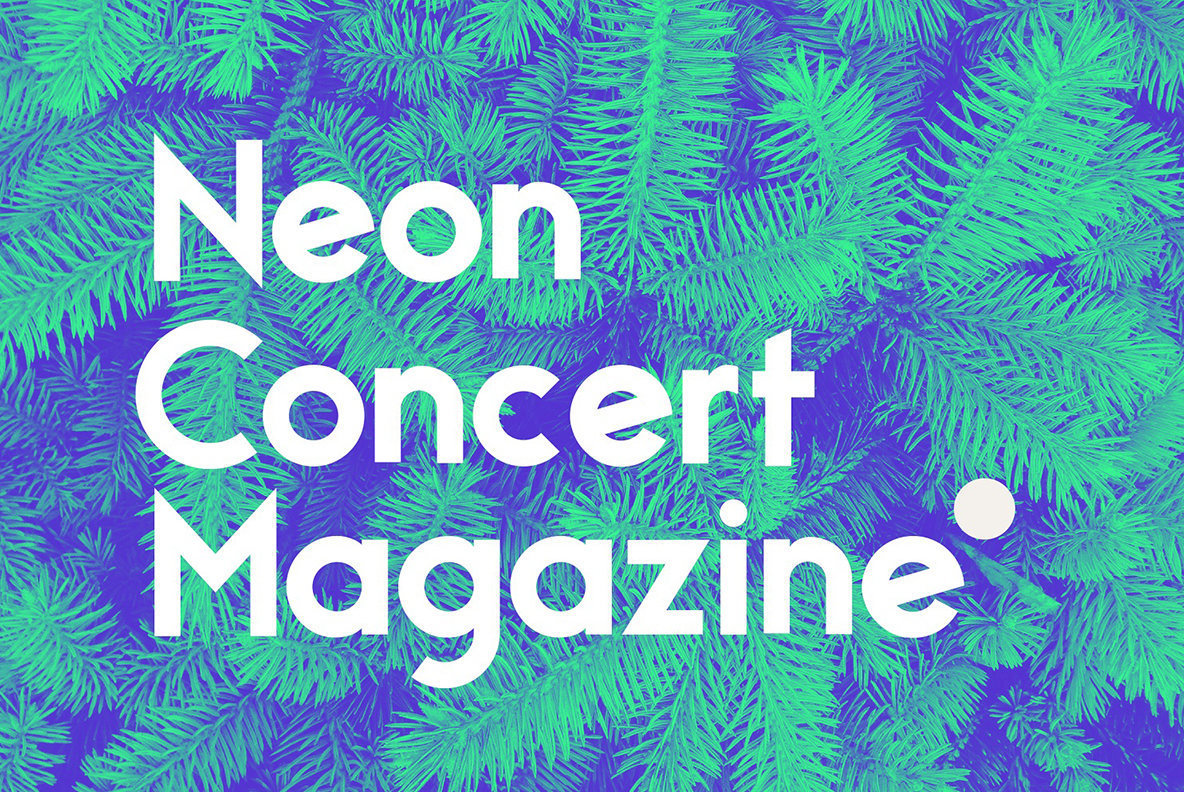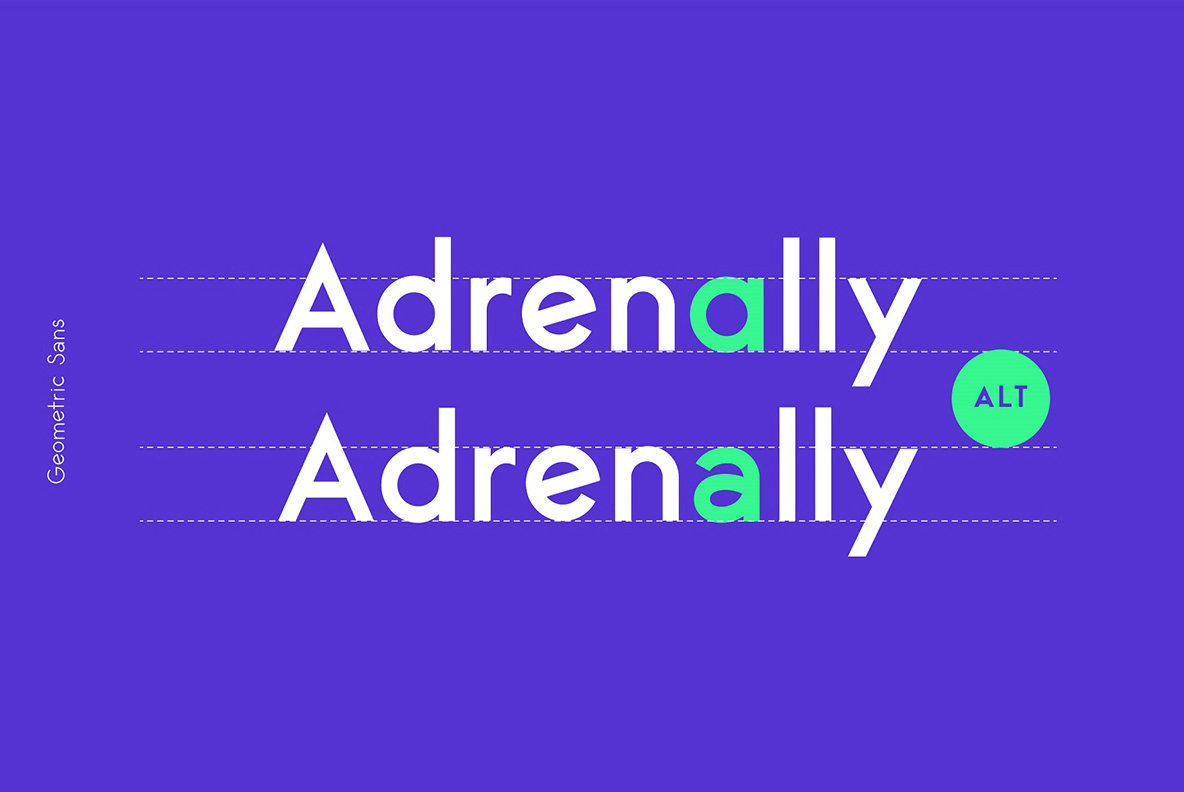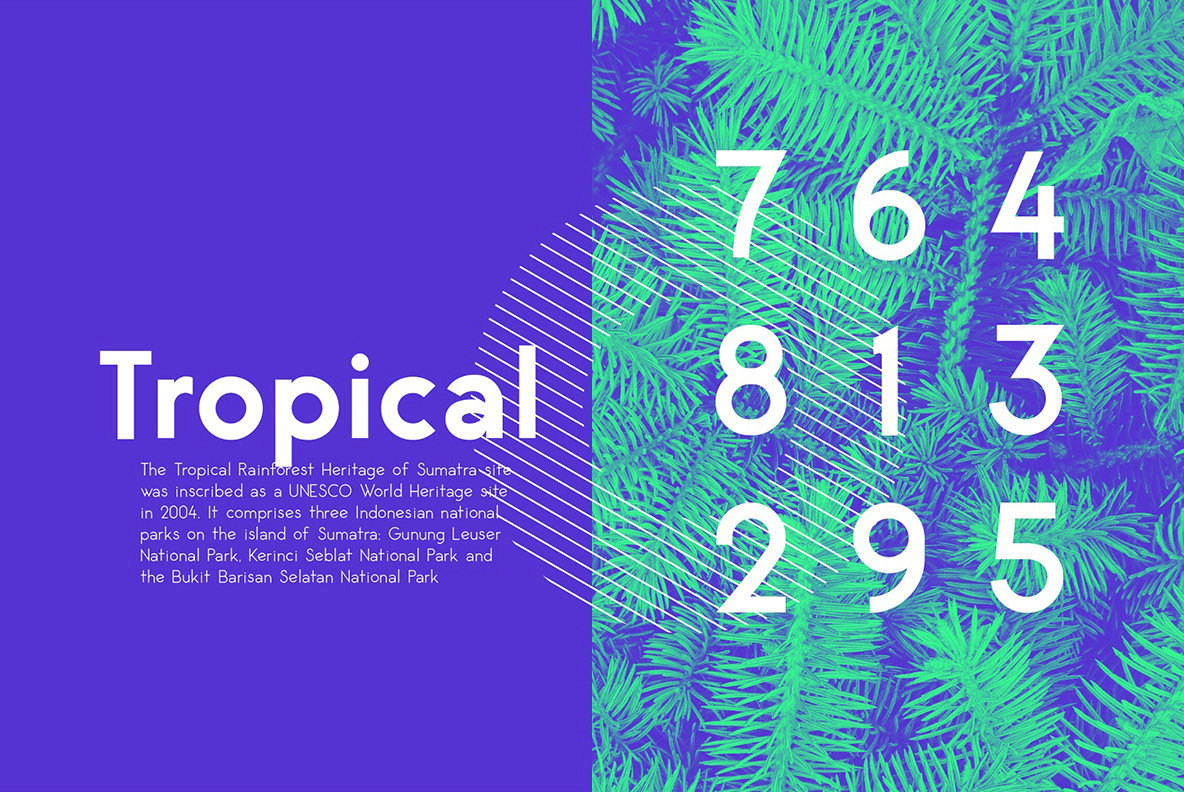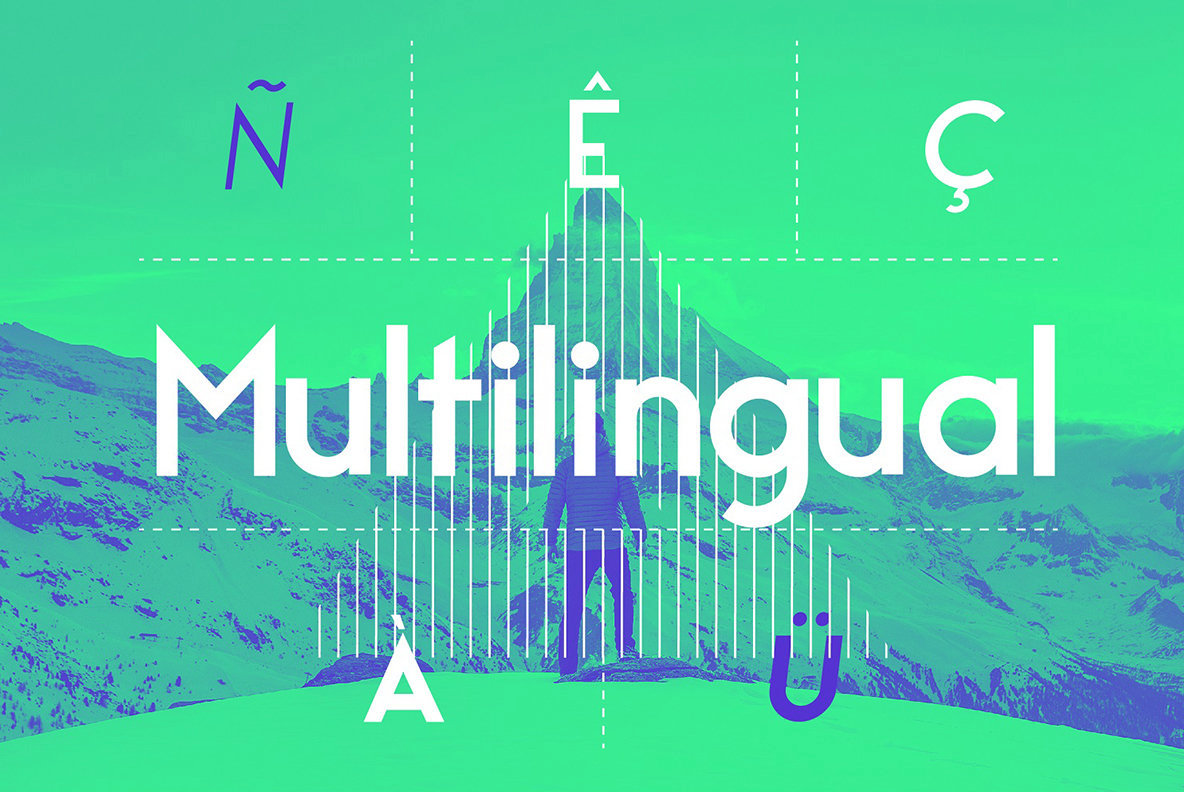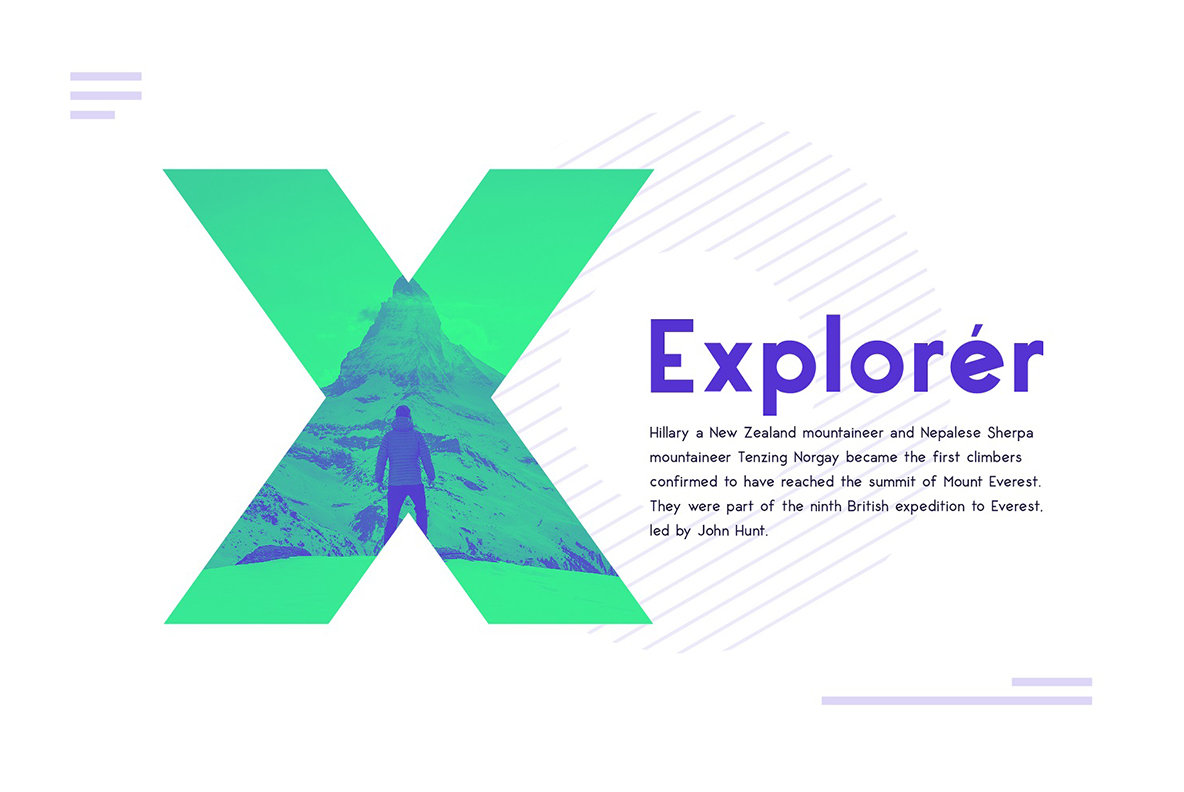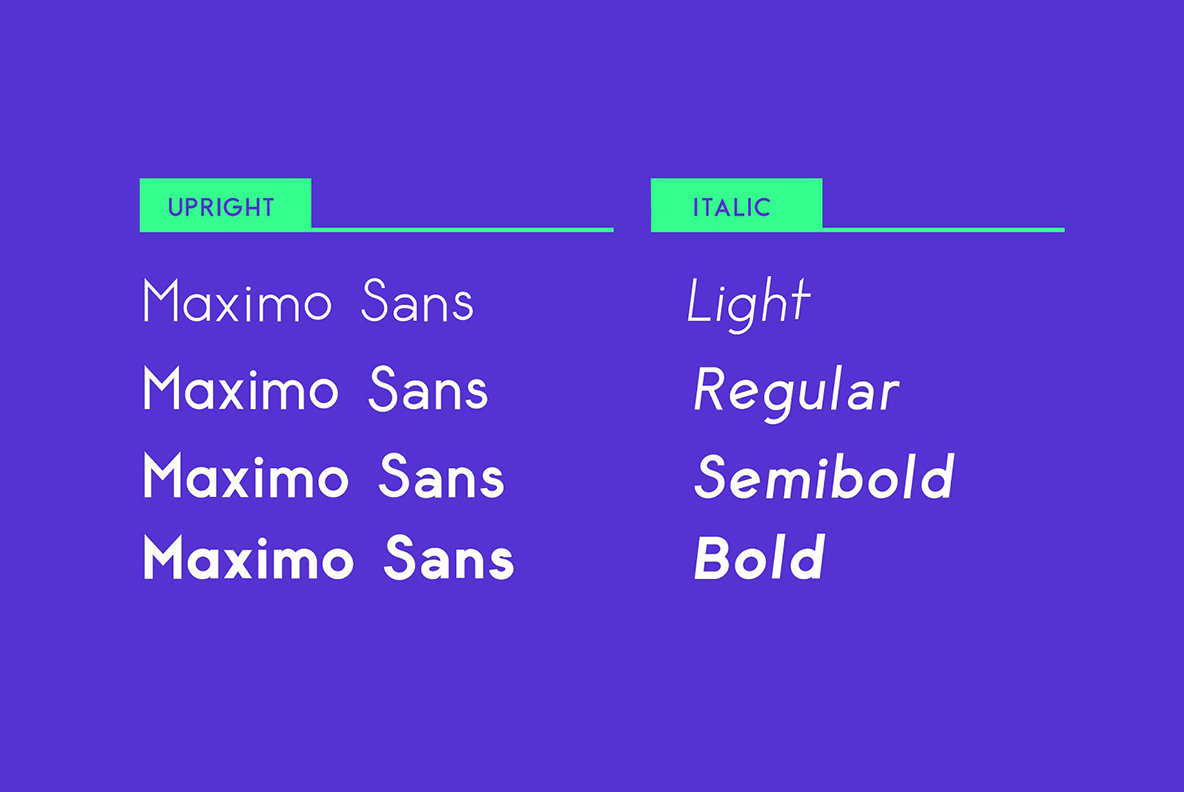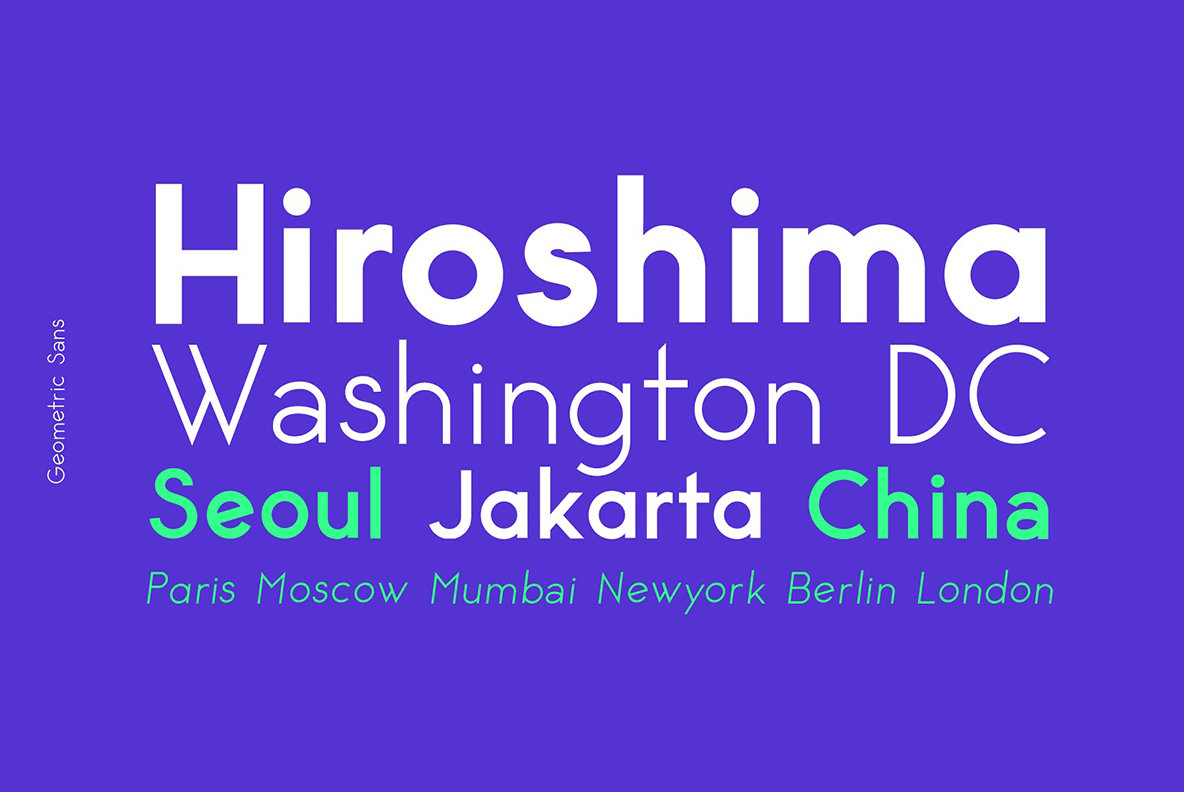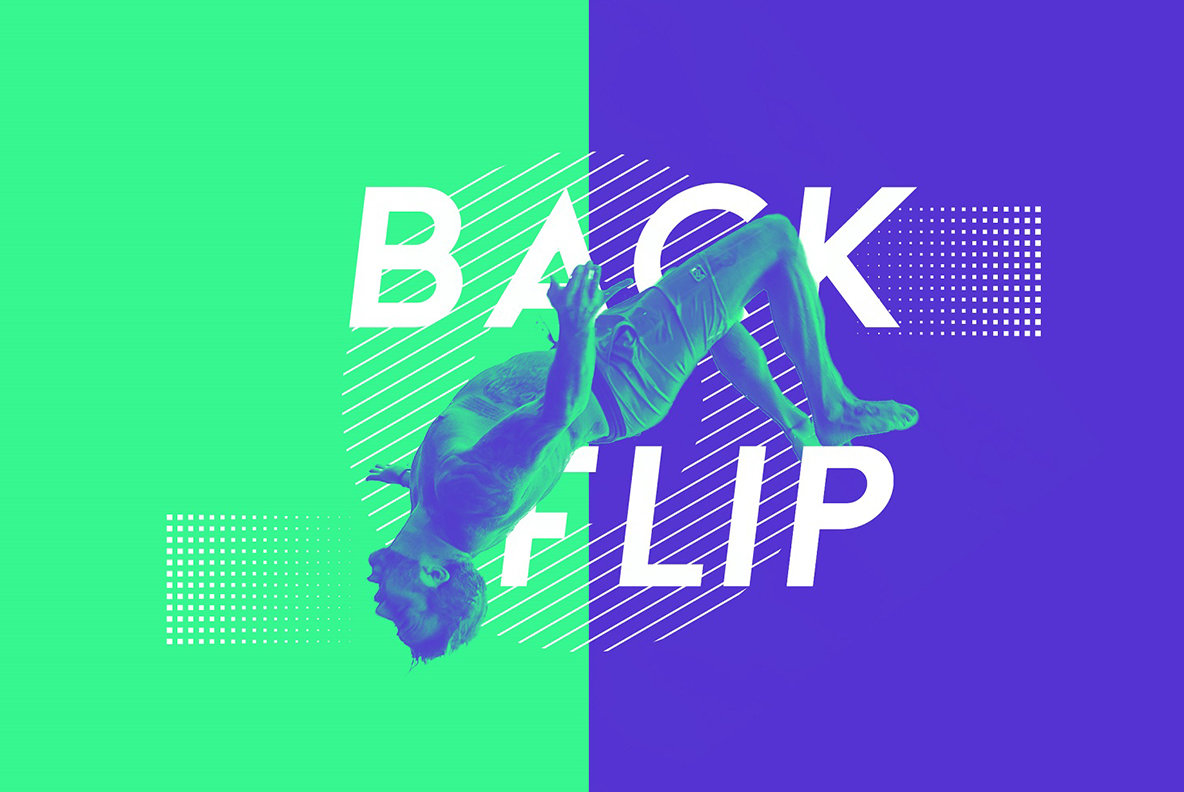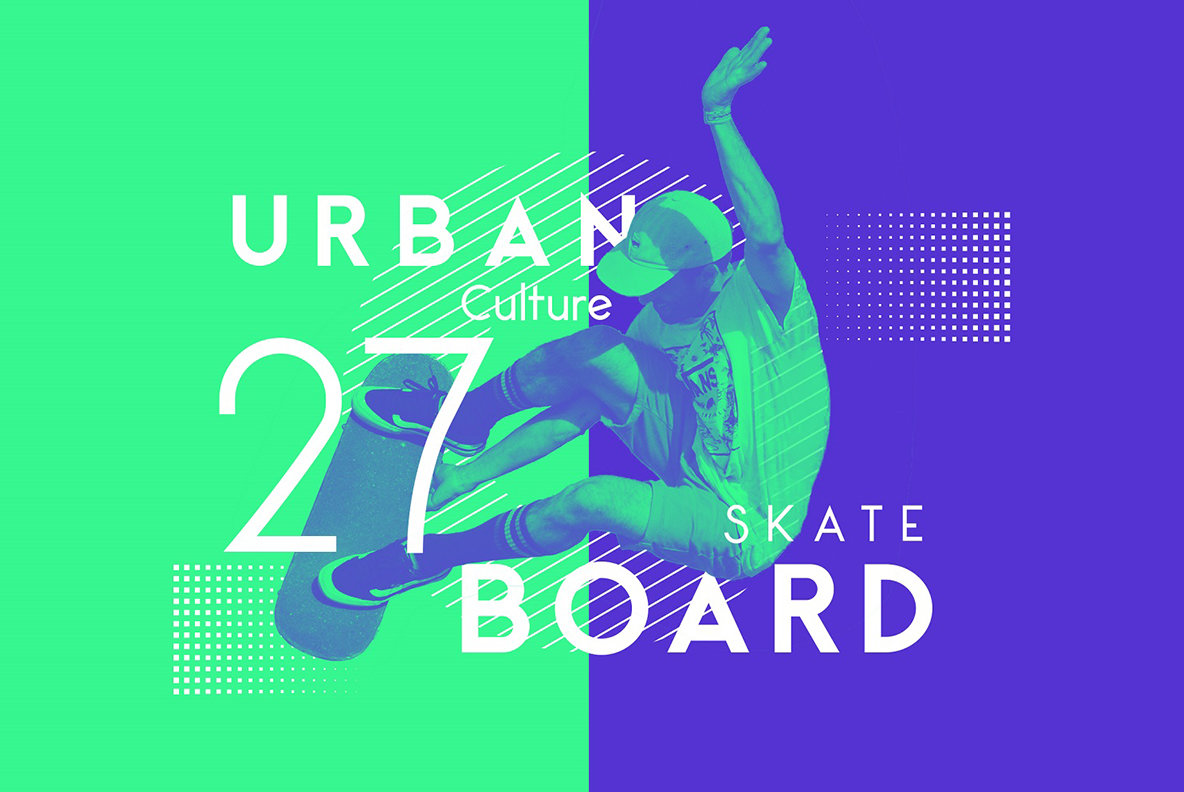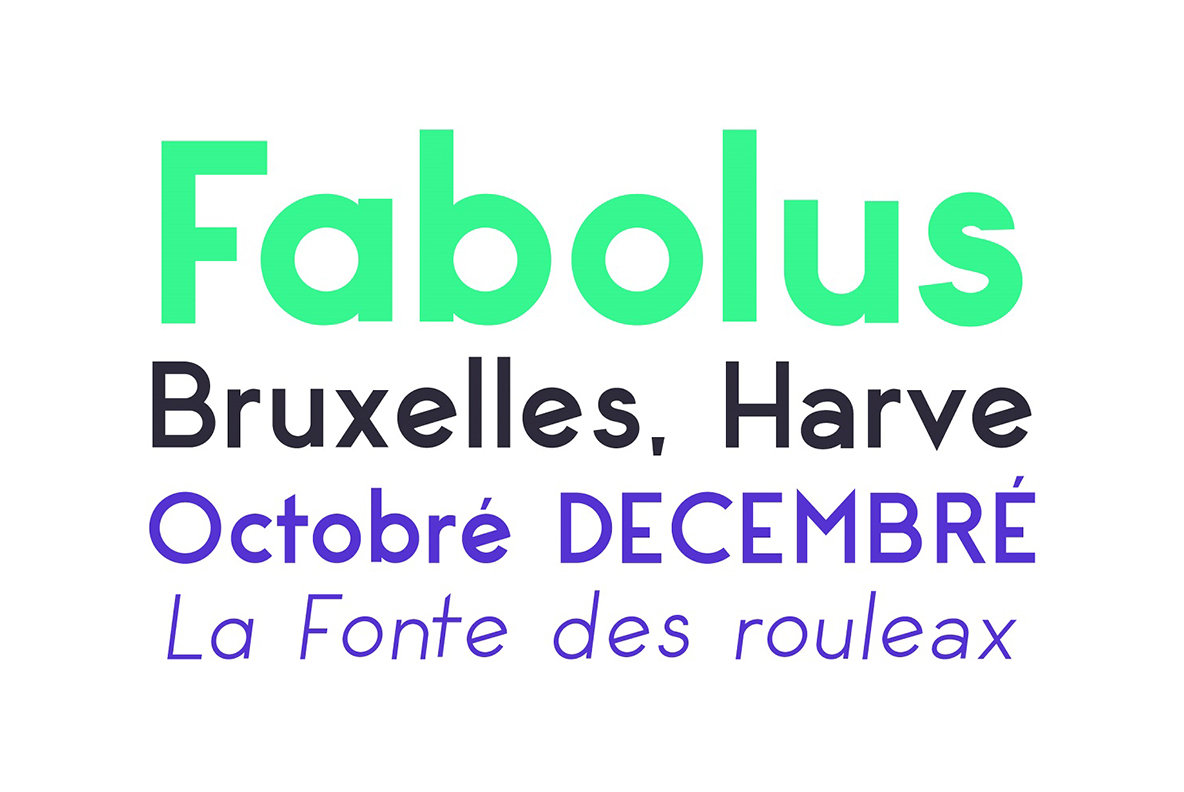
Maxim Sans Font
Maxim Sans is a dynamic contemporary sans serif font family of 8 fonts. Designed with clean and stylized sporty geometry with harmonious appearance for both texts and headlines. Maxim Sans is perfect companion for branding, editorial and signage, also works great for bigger applications.
- Capital + Lowercase letters
- Numbers + Punctuation
- 8 weights [ Light, Light Italic, Regular, Italic, Semi Bold, Semi Bold Italic, Bold, Bold - Italic]
- Multiple Language supported